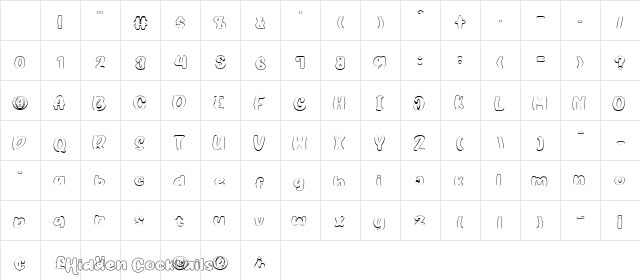
Hidden Cocktails embraces imperfection - its rough, textured character adds raw authenticity to designs that want to feel lived-in and unconventional.
Pro Tip: Use Hidden Cocktails at larger sizes where the texture and irregularity of each letterform can be clearly seen - it loses its character at small sizes.